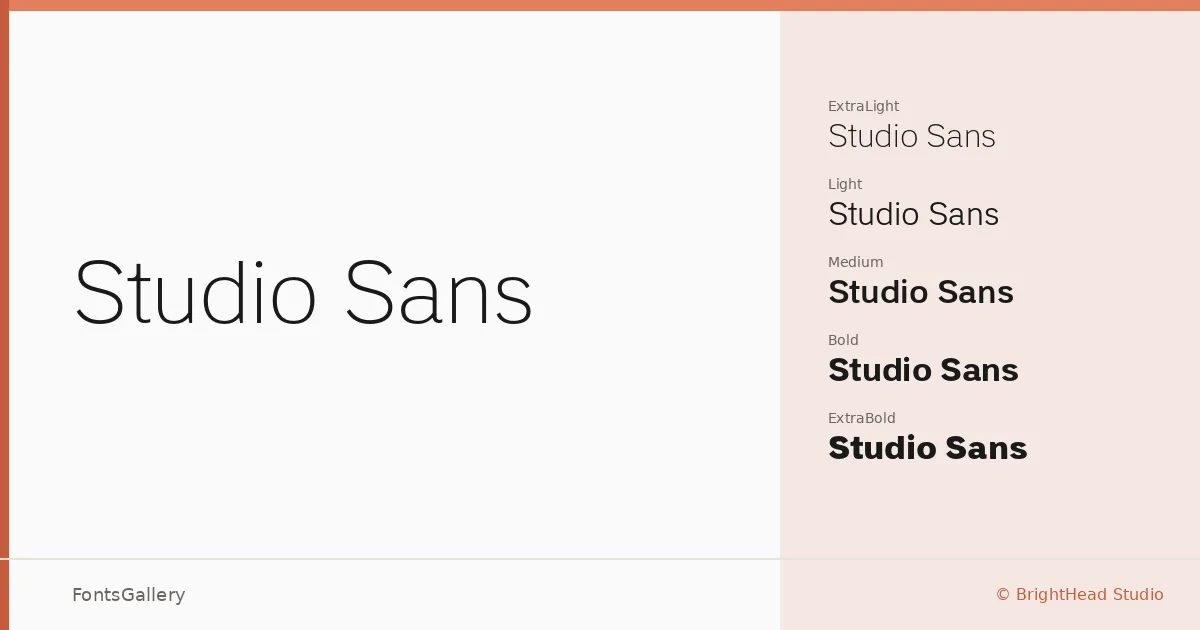
About Studio Sans Font
There is a quiet confidence to this sans-serif, drawn by Michael Chereda for BrightHead Studio. It sits without fuss on the page — clean stroke contrast, even spacing, and geometry that leans modern without chasing trends. The family covers both Latin and Cyrillic scripts, making it genuinely useful across multilingual work.
The six weights — ExtraLight, Light, Regular, Medium, Bold, and ExtraBold — give you a controlled range from refined editorial lightness to assertive display weight. The overall mood is minimal and professional: terminals are neat, proportions are neutral, and nothing in the letterforms is doing more work than it needs to. All cuts are delivered as OTF files.
It earns its place in branding systems, logo lockups, magazine layouts, presentation decks, and website headers — anywhere a clean, modern hierarchy needs to hold together at a glance. For contrast, the listed pairings include Canela, Armelie, 321 Impact, AQUA, and Kactigona, each of which would push against its neutrality in an interesting way.